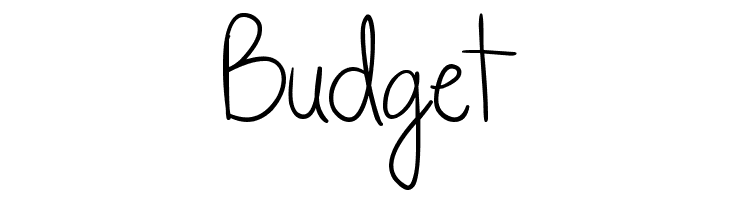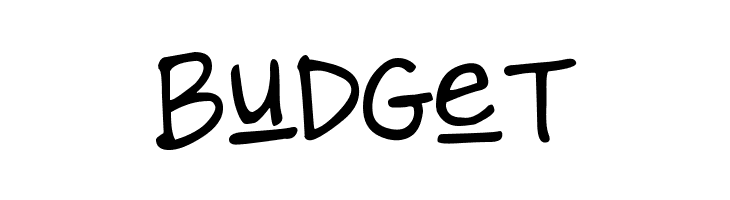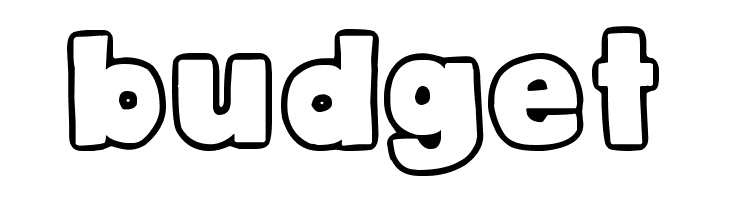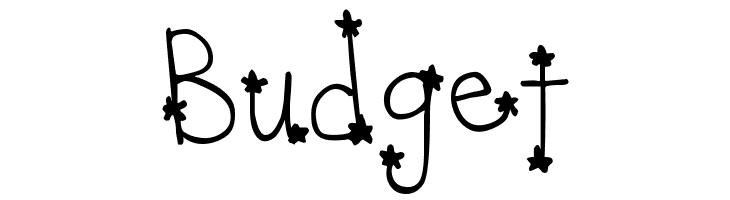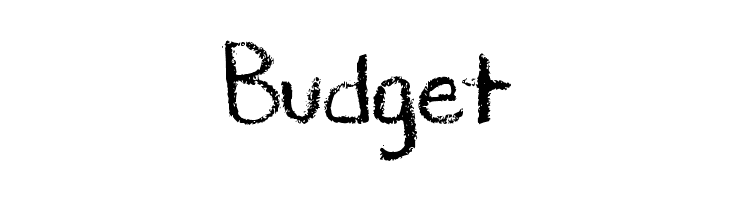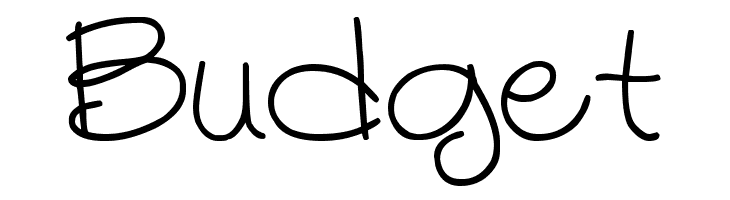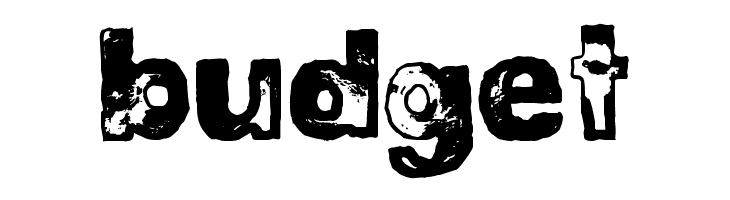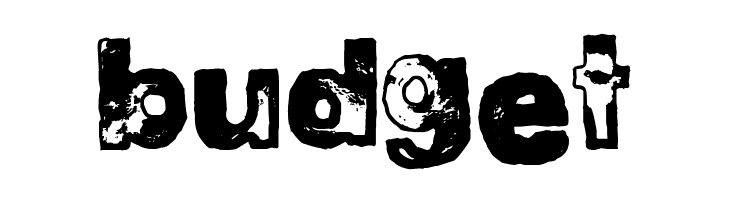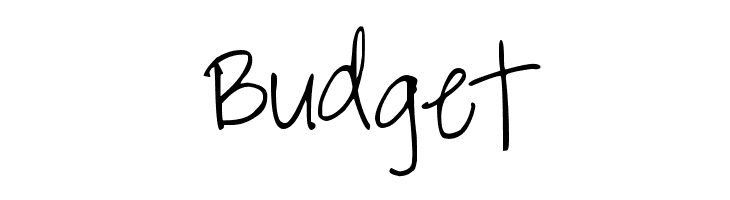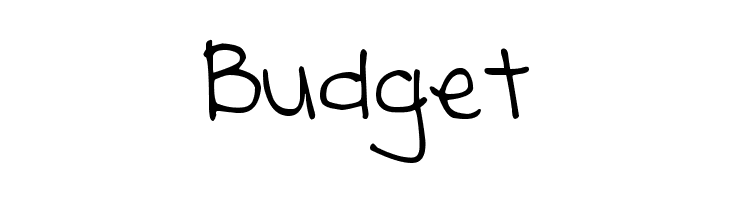
• DJB It's Full of Stars
A playful, star-embellished font with a hand-drawn feel.
• DJB It's Full of Stars
• DJB 2CUTE4U
A playful, whimsical font with bold outlines and handwritten script elements.
• DJB A Bit of Flaire
A playful, casual handwritten font with irregular strokes.
• DJB About a Boy
A playful, casual handwritten font with fluid strokes and a dynamic style.
• DJB All Cool Chicks
A playful, handwritten font with a youthful and energetic vibe.
• DJB All the Cool Chicks
A playful, casual handwritten font with lively, irregular strokes.
• DJB Almost Perfect
A playful, handwritten font with bold strokes and a casual, whimsical style.
• DJB Angel Baby
A playful, whimsical handwritten font with loose, flowing strokes.
• DJB Annalise the Bold Bold
A bold, playful handwritten font with rounded, irregular letterforms.
• DJB Annalise the Brave
A playful handwritten font with a whimsical and creative style.
• DJB Another Mandy
A playful, bold handwritten font with a casual and dynamic style.
• DJB Baby Bump
A playful, handwritten font with rounded edges and a casual feel.
• DJB Baby Bump Bold
A playful, rounded font with bold, smooth curves and a friendly vibe.
• DJB BAD STAMP JOB 1
A distressed, grunge-style font with a bold, rugged appearance.
• DJB BAD STAMP JOB 2
A bold, distressed font with a grunge, stamp-like appearance.
• DJB Bailey
A playful, handwritten font with a casual and friendly appearance.
• DJB Bean Pole
An ultra-thin, elongated font with a playful and modern aesthetic.
• DJB Belly Button-Outtie
A playful, bold font with rounded, outlined characters perfect for whimsical designs.
• DJB BellyButton-Innie Bold
A bold, playful font with rounded edges and a chunky appearance.